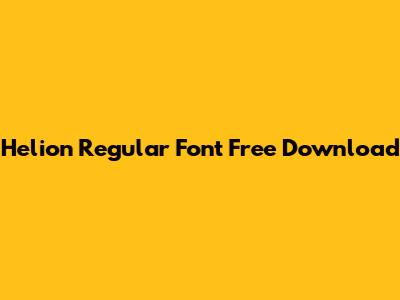
Let's talk about fonts, guys! Specifically, the Helion Regular font. If you're on the hunt for a clean, modern typeface to spice up your design projects, you've probably heard of it. This article will dive deep into what makes Helion Regular so appealing and, most importantly, how you can snag it for free.
What Makes Helion Regular Special?
When you are looking for a new font, the Helion Regular font stands out with its clean lines and modern aesthetic. This font is a versatile typeface and it is very suitable for a wide range of design projects. Helion Regular has a simplicity and elegance that can make your text look professional and readable, which is very important in graphic design and typography. Its design is balanced, making it great for both headlines and body text, which is a key feature for designers aiming for consistency across their projects.
Helion Regular's appeal lies in its adaptability. It works exceptionally well in both digital and print media. On websites, its clear and legible characters ensure a pleasant reading experience, reducing eye strain and improving engagement. In print, whether it's on brochures, posters, or business cards, Helion Regular maintains its clarity and impact, helping your message stand out. Its versatility extends to various design styles, from corporate to creative, making it a reliable choice for diverse branding and marketing needs. The font's neutrality also allows it to pair seamlessly with other fonts, offering designers the freedom to create unique and visually appealing layouts.
Furthermore, Helion Regular supports a wide range of characters and glyphs, including multiple languages, which is crucial for projects targeting a global audience. This comprehensive support ensures that your message remains consistent and accurate, regardless of the language. Its meticulous design pays attention to kerning and spacing, enhancing readability and giving your text a polished, professional look. The font's availability in various weights and styles, such as bold, italic, and condensed, provides even more flexibility, enabling designers to create visual hierarchy and emphasize key elements within their designs. These attributes make Helion Regular a go-to font for designers seeking a reliable, versatile, and aesthetically pleasing typeface.
When seeking safe and legal alternatives, focus on fonts that offer a similar aesthetic to Helion Regular while ensuring you comply with licensing requirements. Open-source fonts are an excellent option, as they are typically free to use, distribute, and modify. Websites like Google Fonts, Font Squirrel, and DaFont offer a wide variety of open-source fonts that can serve as viable substitutes. These platforms provide clear licensing information, giving you peace of mind knowing you're using the fonts legally.
Before settling on a replacement, take the time to compare different fonts and assess how well they align with your design needs. Consider factors such as readability, character support, and stylistic versatility. Look for fonts that offer similar weights and styles, such as bold, italic, and condensed, to maintain consistency with your original design vision. Additionally, check how well the alternative font pairs with other fonts in your project. By carefully evaluating these factors, you can find a suitable replacement that meets your design requirements without compromising on legality or security. Remember, the goal is to achieve a similar visual impact while adhering to ethical and legal standards, ensuring a smooth and worry-free design process.
How to Spot a Risky Download
Alright, how do you avoid those shady font websites offering a Helion Regular font free download? Here are a few red flags to watch out for. Firstly, if a website is riddled with ads and pop-ups, that's a major warning sign. Secondly, double-check the website's URL; often, scam sites have slightly altered addresses. Lastly, read user reviews and check for any reports of malware or copyright issues associated with the site. The Helion Regular font is a great font but is not worth you damaging your computer over.